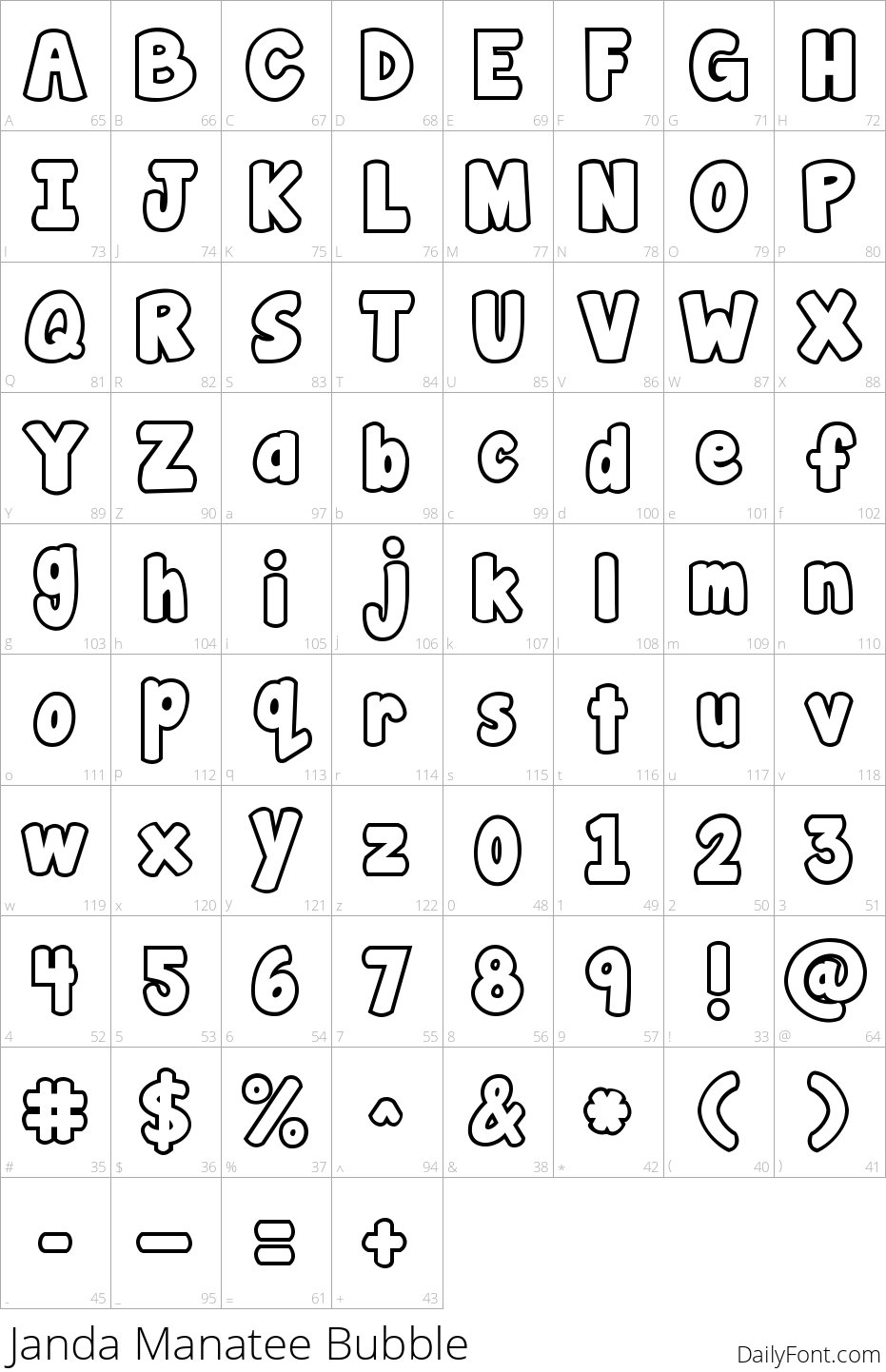
Janda Manatee
Bold bubble-outline caps with a fun, playful comic feel
Janda Manatee is a bold, bubbly display font from Kimberly Geswein Fonts, built from thick, rounded outline strokes that give every letter a fun, inflated, comic-book feel.
The family comes in two styles: Janda Manatee Bubble, with a hollow, chunky outline, and Janda Manatee Solid, a filled version of the same shapes - so you can pick whichever weight fits your design.
It's a great match for children's books, birthday invitations, comic-style headlines, and any playful project that calls for a big, friendly display font.